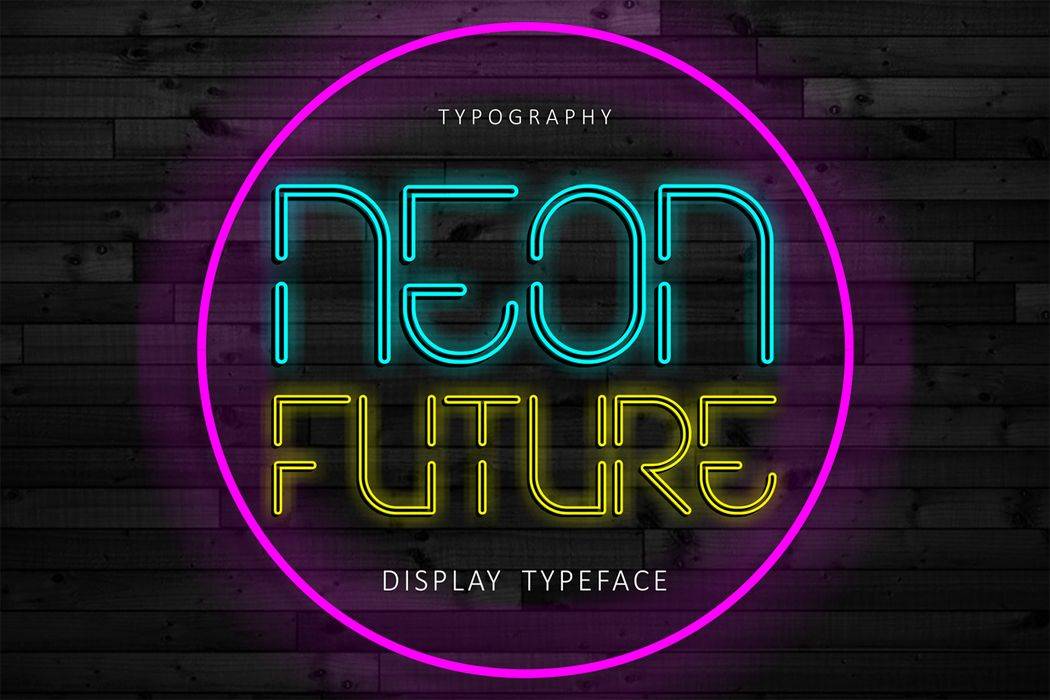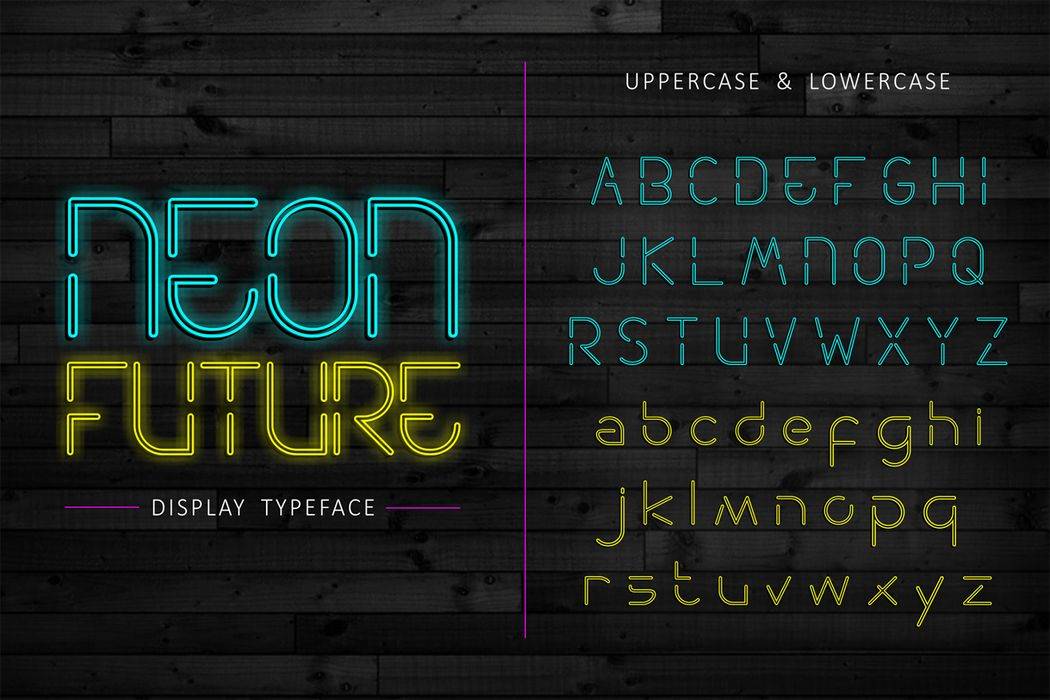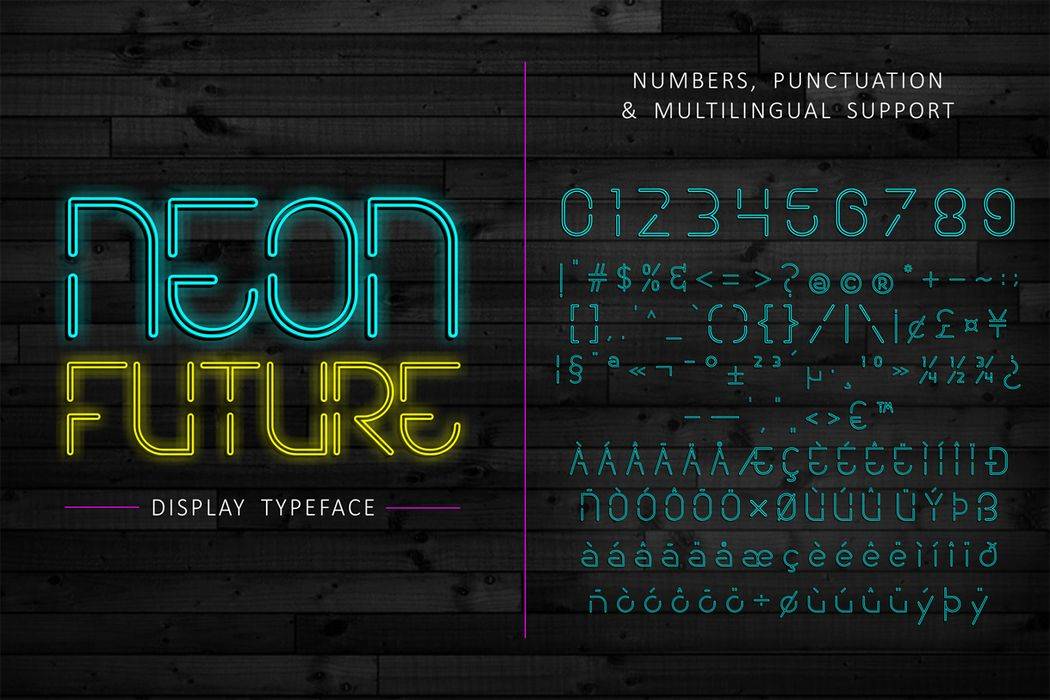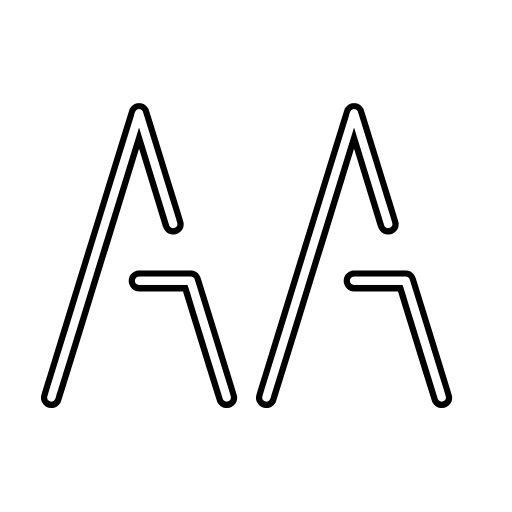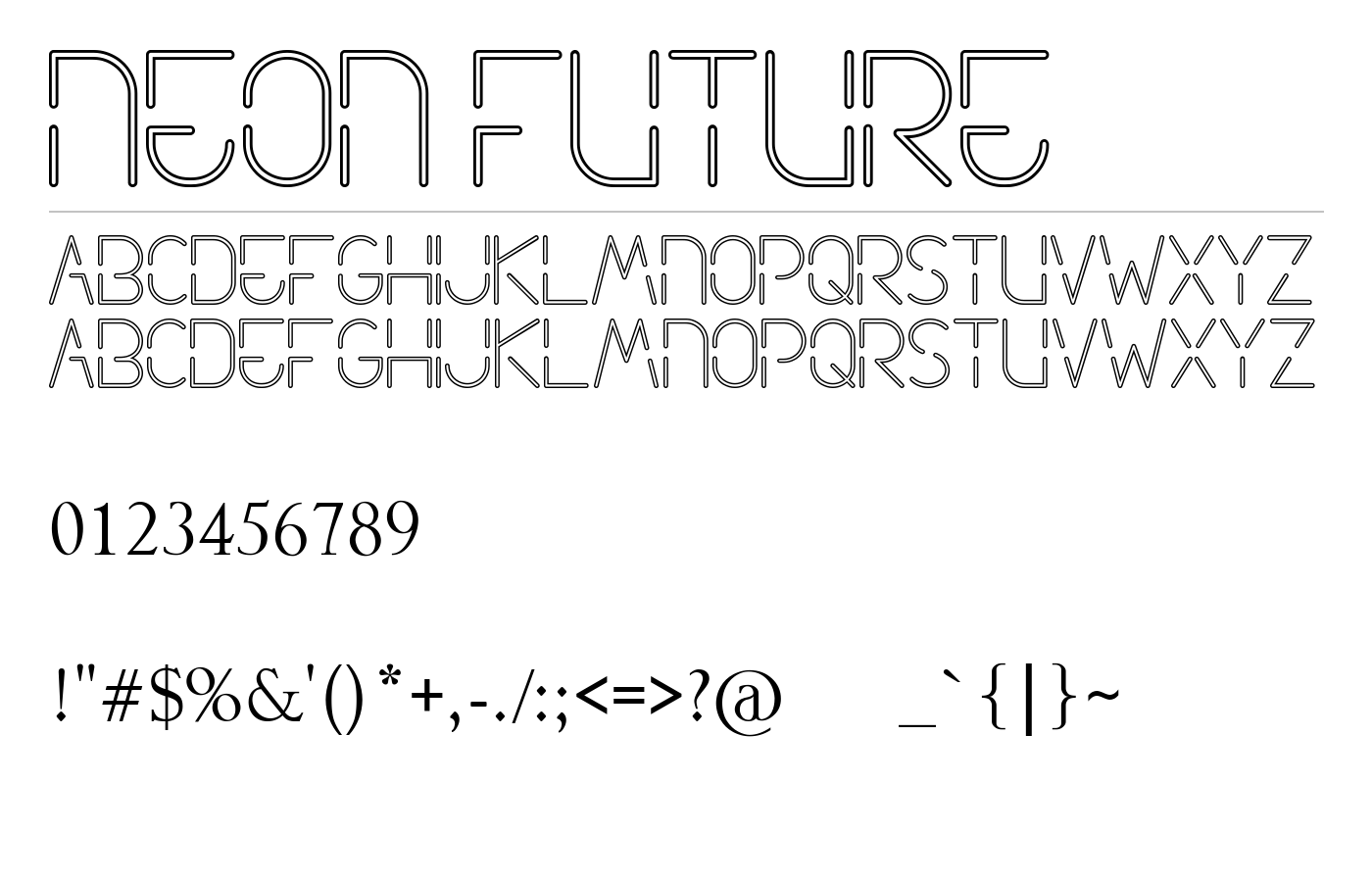
Neon Future is a modern, futuristic sans serif font characterized by its slim, double-line strokes that evoke the look of glowing neon tubes. Its clean, geometric letterforms with sharp corners and open counters give a sleek, tech-inspired feel perfect for branding, headlines, and digital design projects aiming for a cutting-edge, stylish vibe. This font excels in creating a bold impression where a contemporary, innovative aesthetic is desired.
Neon Future Font
About Neon Future Font